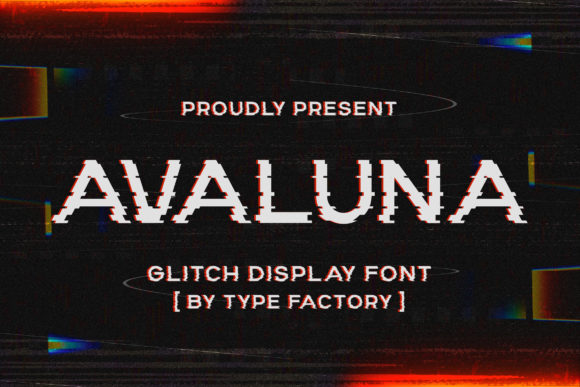
The Glitchy Charm of Avaluna Font: A Designer’s Delight
Avaluna is an eccentric typeface designed to illustrate an artistic and modern digital glitching effect. With its unique blend of distorted and glitchy elements, it’s perfect for designers, crafters, and creative hobbyists looking to add a touch of contemporary style to their artworks or websites.
An Honest Review: What I Love and What I Don’t
- ✅ Unique glitchy effect that adds a modern touch to any design
- ✅ Perfect for branding, game title design, and stunning design projects
- ✅ Easy to use and customize, even for beginners
- ✅ Supports OpenType features, glyphs, and stylistic alternates
- ⚠️ Limited use cases for formal or traditional designs
- ⚠️ May not be suitable for small font sizes or body text
- ⚠️ Some users may find the glitchy effect too overwhelming or distracting
Avaluna Font was inspired by the early days of digital art, when glitches and errors were a common occurrence. The designer wanted to capture the essence of this era and create a font that would reflect the imperfections and uniqueness of digital art. The result is a font that’s both nostalgic and modern, perfect for designers looking to add a touch of personality to their work.
Q: What is Avaluna Font?
A: Avaluna Font is an eccentric typeface designed to illustrate an artistic and modern digital glitching effect.
Q: What is Avaluna Font used for?
A: Avaluna Font is perfect for branding, game title design, stunning design projects, and any creative endeavor that requires a modern and edgy touch.
Q: Is Avaluna Font easy to use?
A: Yes, Avaluna Font is easy to use and customize, even for beginners. It supports OpenType features, glyphs, and stylistic alternates, making it a versatile choice for designers.